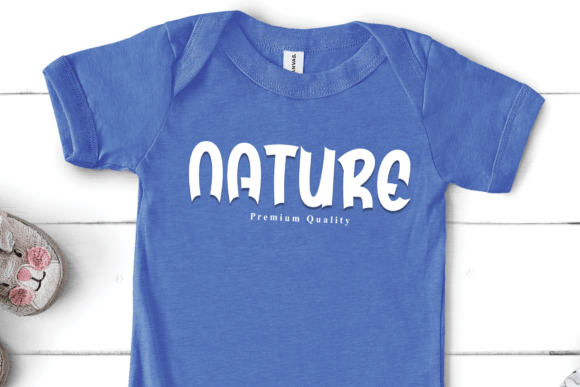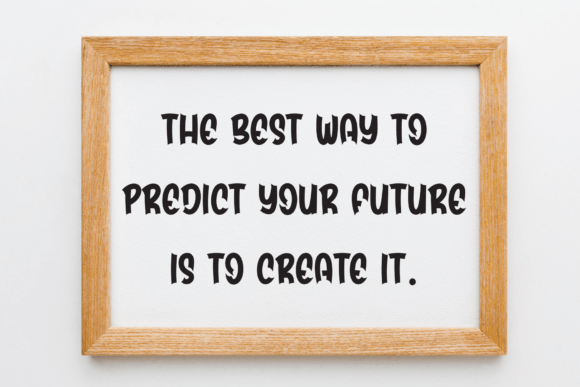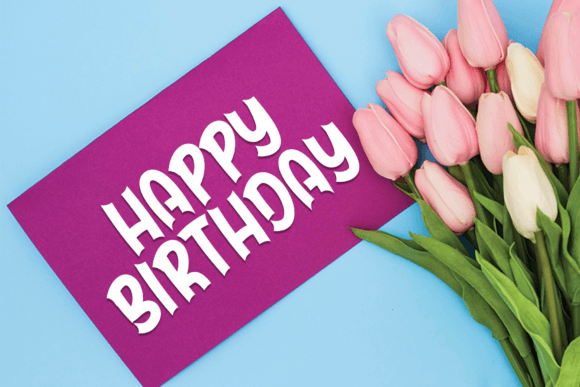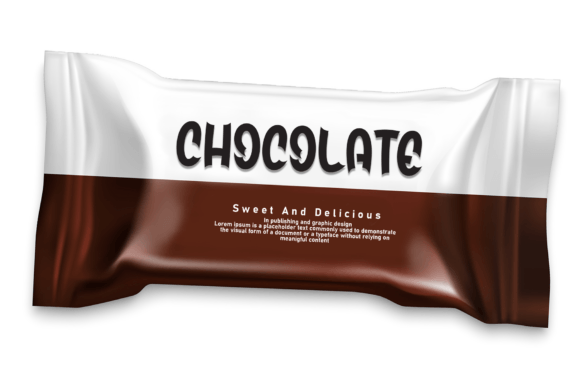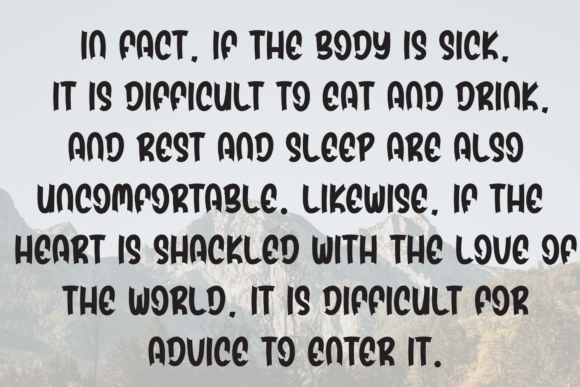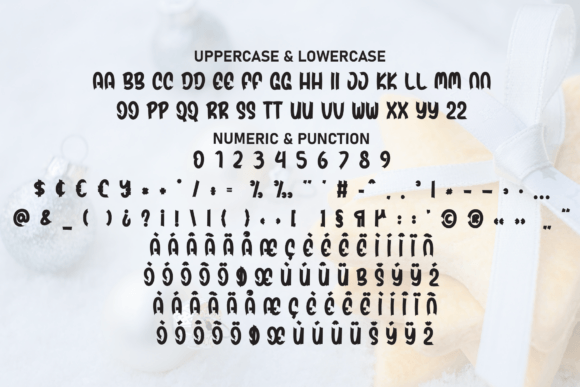
Introduction to Snow Ribbon Font
Introducing a charming and approachable handwritten display font – the embodiment of sweetness and amiability.
Infused with an adorable and lively aura, this font can effortlessly turn your wedding invitations or greeting cards into artistic delights For those designs that call for a sprinkle of fun and a dash of joy, this font brings the perfect touch.
Key Features of Snow Ribbon Font
Why Choose Snow Ribbon Font?
Snow Ribbon Font offers exceptional quality and versatility, making it a valuable addition to your design toolkit. Whether you’re creating for personal projects or commercial use, Snow Ribbon Font delivers professional results.